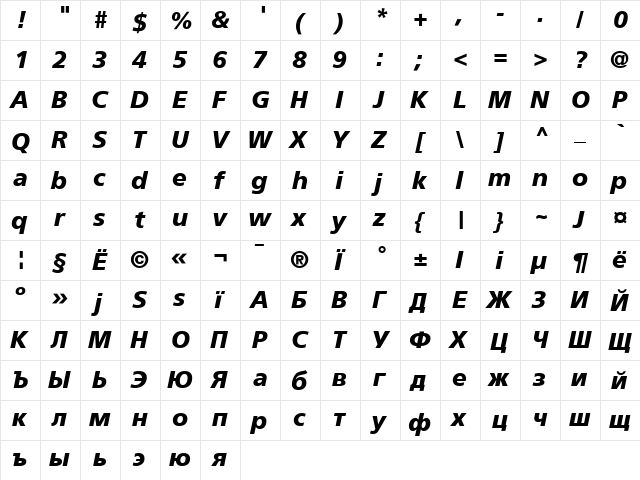
AG Foreigner Bold Italic
Design Context for AG Foreigner Typeface
AG Foreigner is a composed and adaptable typeface that performs quietly and consistently across a wide range of design contexts. The slanted form adds forward momentum and visual energy. The heavy weight commands attention and anchors typographic hierarchies.
Pro Tip: Try AG Foreigner for annotation and caption copy alongside an upright companion — the contrast in angle creates a dynamic but ordered typographic system.